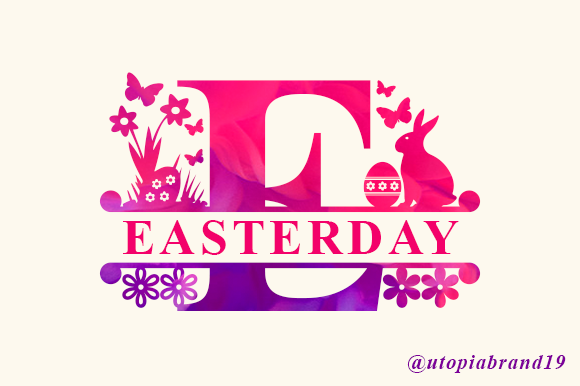
Spring into Creativity with the Perfect Easter Font
As the Easter season approaches, designers are buzzing with ideas for festive graphics, cards, and decorations. And in the midst of brainstorming, it’s not uncommon to feel stuck – until you stumble upon the perfect font to elevate your creation. For those seeking a sweet and eye-catching solution, look no further than the Easterday Monogram Font.
This charming decorative font is designed specifically for Easter-related design ideas, making it an absolute treasure trove for designers. Its simplicity belies a strong visual impact, instantly making your design stand out from the crowd. Whether you’re creating Easter-themed invitations, social media posts, or even a DIY craft, the Easterday Monogram Font is sure to add a touch of whimsy and charm to your work.
Easterday Monogram Font Key Features
- Unique Characteristics: The Easterday Monogram Font features a monogram-inspired design, with intricate details and flourishes that make it perfect for creating elegant and sophisticated designs.
Easterday Monogram Font Review
I recently had the chance to work with the Easterday Monogram Font, and I must say, it’s a unique and stylish addition to any design project. ✨ The font’s monogram style gives it a touch of sophistication and elegance, making it perfect for high-end branding, invitations, and other special occasions.
- What works well: ✨
- Distinctive monogram style that adds a touch of luxury
- Wide range of characters, including uppercase and lowercase letters, numbers, and punctuation
However, there are some limitations to consider: ⚠️ The font’s complexity can make it difficult to read at small sizes, and the monogram style may not be suitable for all types of content. Additionally, the font’s limited language support may be a concern for designers working on multilingual projects.
Overall, I’d say the Easterday Monogram Font is a solid choice for designers looking to add a touch of sophistication to their projects. While it may have some limitations, its unique style and high-quality files make it a valuable addition to any design library.
The Easterday Monogram Font is perfect for:
- Special occasion graphics and templates
Alternatives to Easterday Monogram Font
Q: Can I customize the Easterday Monogram Font to fit my brand’s color scheme?